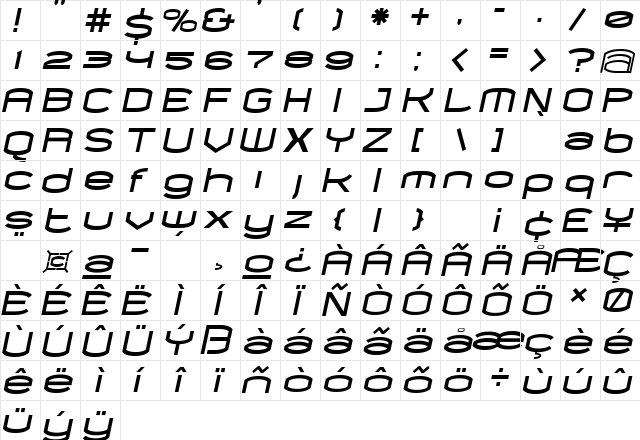
Chord BlackItalic
Design Context for Chord Typeface
Chord offers clean, dependable letterforms without strong stylistic allegiance, making it a practical choice for designers who need flexibility. The slanted form adds forward momentum and visual energy.
Pro Tip: Try Chord for annotation and caption copy alongside an upright companion — the contrast in angle creates a dynamic but ordered typographic system.